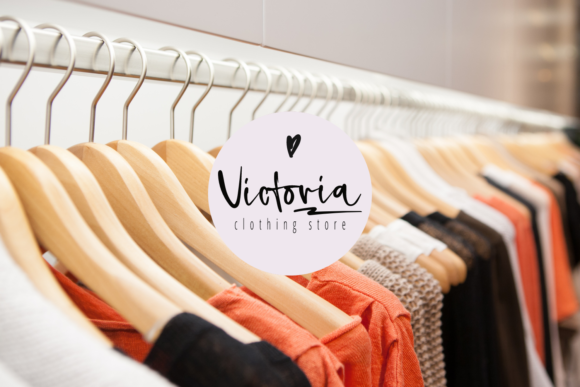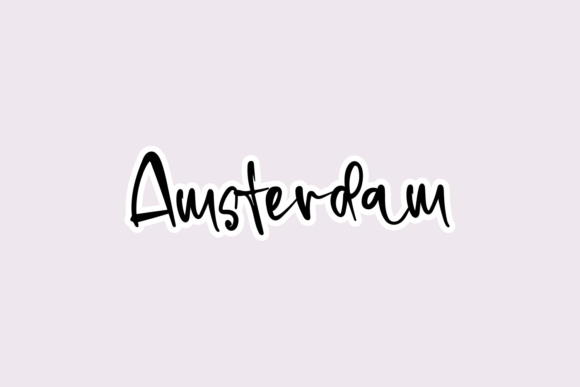
Afterglow Font
db-ku.com - Script & Handwritten -- Afterglow is an incredibly distinct, delicate, and timeless handwritten font featuring a lightweight style. It is great for crafters and graphic artists alike. Its playfulness makes it great for almost all creative projects!